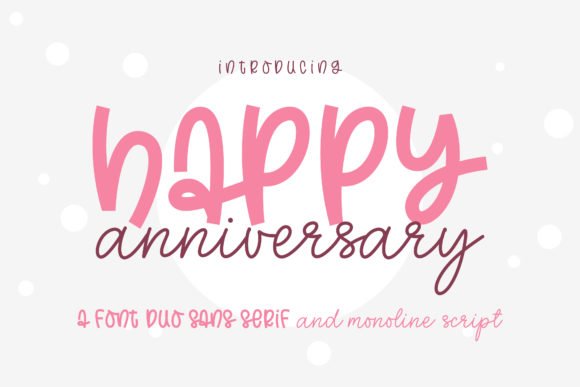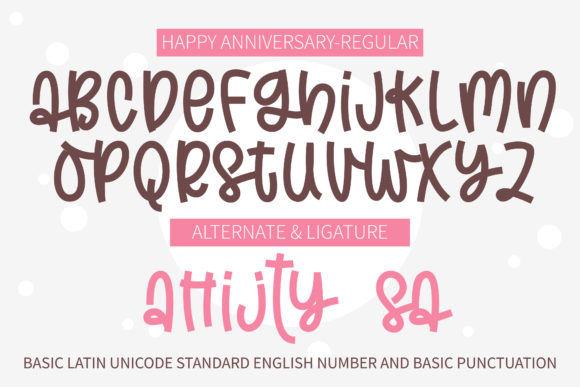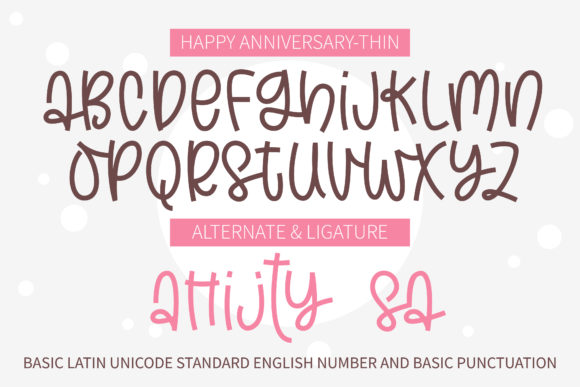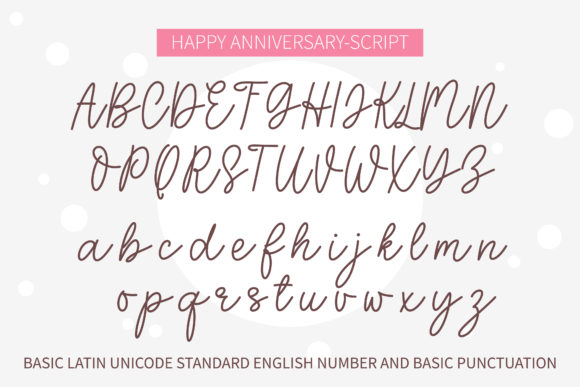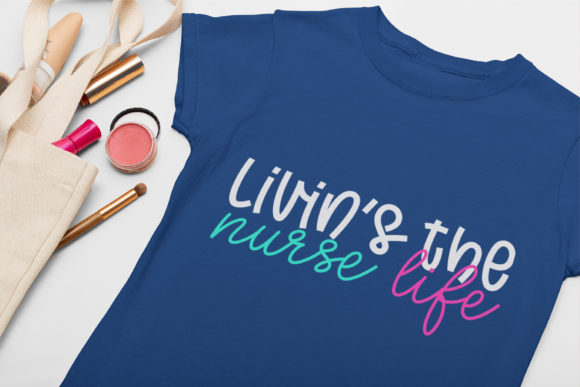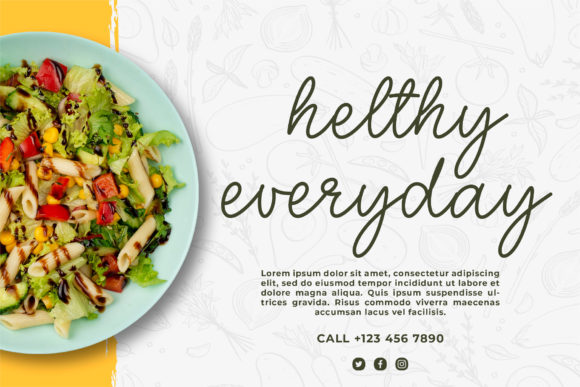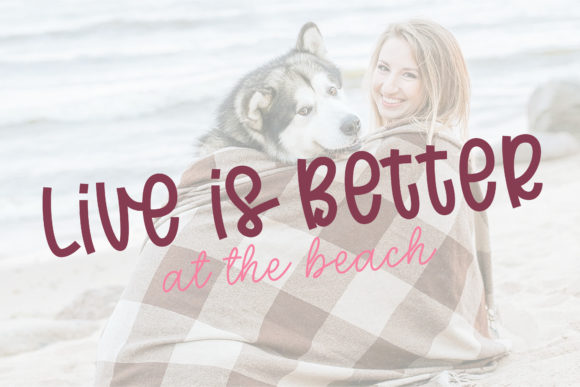
When Words Become Art: Celebrating Love with the Happy Anniversary Font
As a designer, there’s no shortage of moments that spark creativity. Maybe it’s a beautiful sunset, a child’s laughter, or the excitement of a new project. For me, it’s often the simplest things – like the joy of planning a wedding or watching a couple celebrate their anniversary. It’s in these moments that I’m reminded of the power of typography to evoke emotions and tell stories.
That’s why I’m excited to share with you the Happy Anniversary Font, a beautiful duo-styled handwritten font that’s perfect for adding a touch of elegance and charm to any design. Whether you’re creating wedding invitations, thank you cards, or logos, this font is sure to make your designs stand out. Its versatility and charm make it a valuable asset for designers looking to add a personal touch to their work.
So, let’s dive into the world of Happy Anniversary Font and explore what makes it a must-have for any designer looking to create beautiful, meaningful designs that celebrate love and connection.
Key Features of “Happy Anniversary Font”
- Font Family: “Happy Anniversary Font” is a unique, hand-drawn font designed for special occasions, making it perfect for anniversary cards, invitations, and other celebratory materials.
- Unique Characteristics: The font features intricate details, flourishes, and ornaments, adding a touch of elegance and whimsy to any design.
Happy Anniversary Font Review
Overall, I was a bit skeptical about the Happy Anniversary Font, but it ended up being a pleasant surprise. ✨ The font is perfect for, well, happy anniversaries, but it also works well for any occasion that calls for a touch of romance and whimsy. The font’s playful, handwritten feel is sure to add a personal touch to your designs.
The Happy Anniversary Font has some wonderful features, including:
- Customizable swashes and flourishes to make your design truly unique
- A wide range of font sizes and styles to suit any project
- Excellent legibility, even at smaller font sizes
- The font is not suitable for formal or professional projects, as it may come across as too casual
- The font’s whimsical feel may not be to everyone’s taste
- Some characters may not display correctly in certain font sizes or styles
Overall, I’m impressed with the Happy Anniversary Font, and I think it’s a great choice for designers who want to add a touch of personality to their projects. Just be aware of its limitations and use it accordingly.
Tips for Getting the Most Out of Happy Anniversary Font
Use Happy Anniversary Font to create romantic and celebratory designs, such as:
- Anniversary cards and invitations
- Love-themed posters and prints
Experiment with different font sizes, colors, and combinations to add a personal touch to your designs.